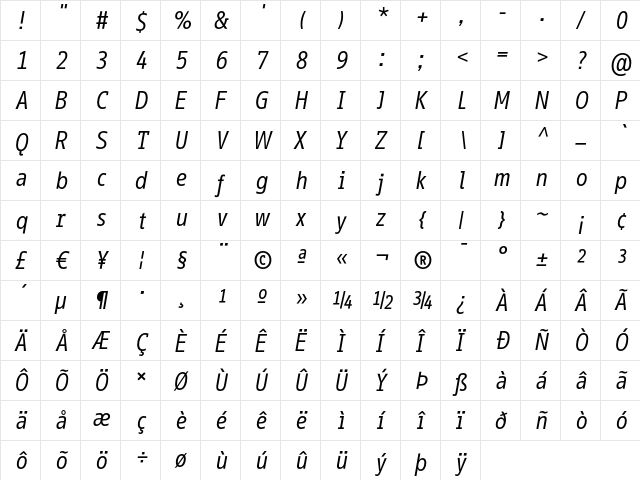
InfoOffice Italic
Design Context for InfoOffice Typeface
InfoOffice offers clean, dependable letterforms without strong stylistic allegiance, making it a practical choice for designers who need flexibility. Its italic angle brings a sense of urgency and motion to the letterforms.
Pro Tip: Use InfoOffice for emphasis, pull quotes, and subheadings where its slanted energy can add rhythm to the layout.